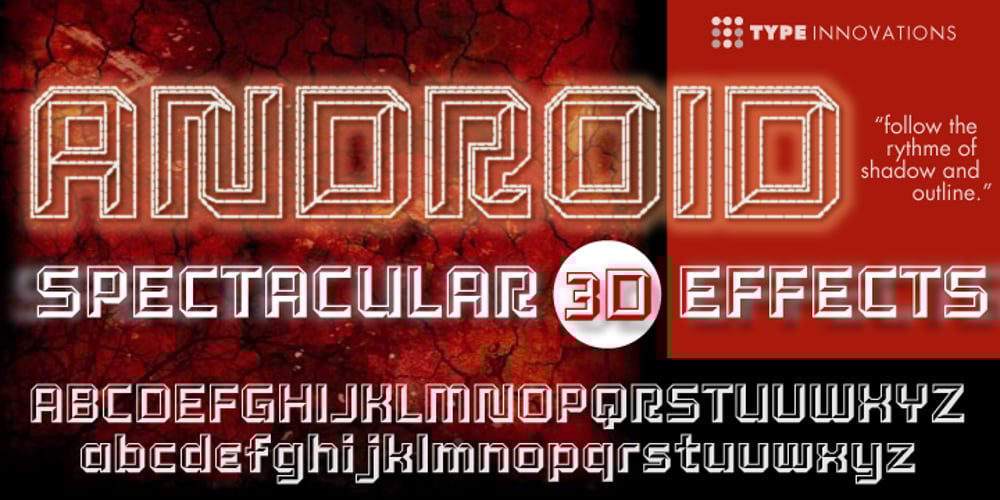
Android Font Family was designed by Alex Kaczun and published by Type Innovations. Android contains 2 styles and family package options. Android is an experimental 3D shadow outline font developed by the American type designer Alex Kaczun. The unique lighting created by the beveled edge in combination with an outline font was particularly difficult to create. But the result was worth the effort. Android makes for a powerful headline display that virtually pops off the page. There is a true three dimensional quality to this innovative new typeface. Use the regular Android when setting tight leading for smaller point sizes, and use Android Tall which has taller capitals for larger headlines. By experimenting with Type Effects in Illustrator or PhotoShop you can achieve some spectacular additional 3D effects.